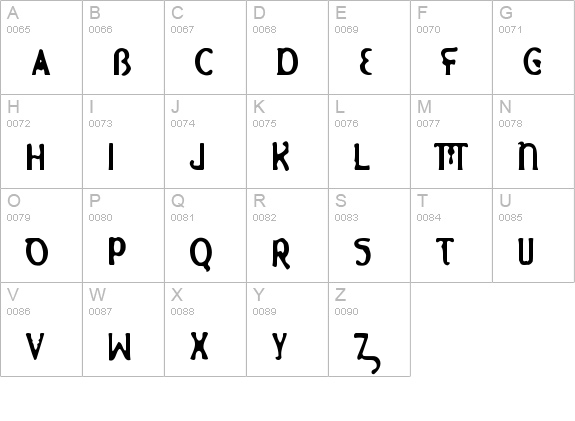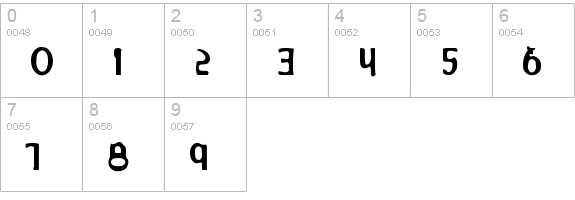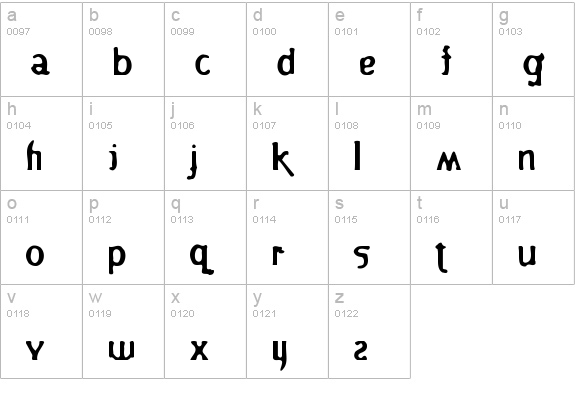
Dutch-Treat font is a modern and stylish typeface that exudes elegance and sophistication. Its clean lines and balanced proportions make it perfect for a wide range of design projects, from branding to editorial design. The font features a unique blend of classic and contemporary elements, giving it a timeless appeal that is sure to make your work stand out. What's even better is that Dutch-Treat font is available for free download at FontsMarket.com. This means you can easily access this high-quality font without any cost, making it a valuable addition to your font library. Whether you're a professional designer or just starting out, Dutch-Treat font is a versatile choice that will elevate your projects and help you achieve the perfect look every time.